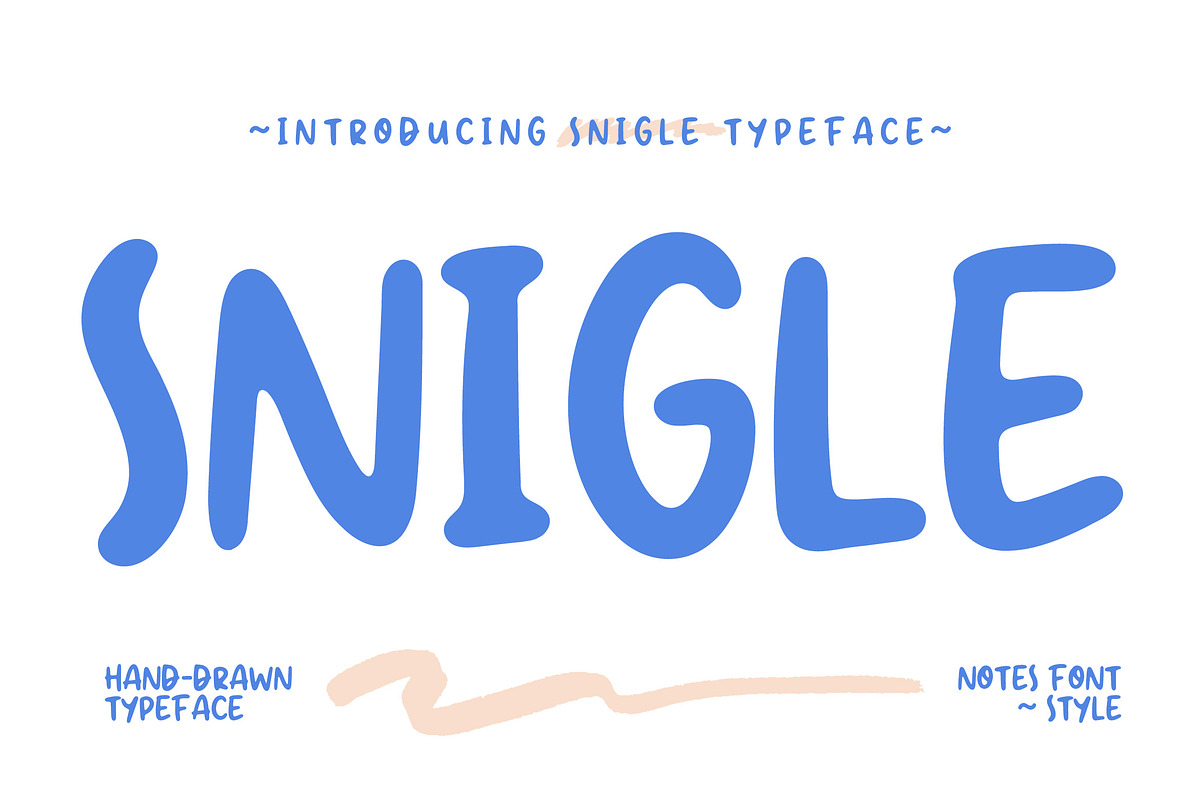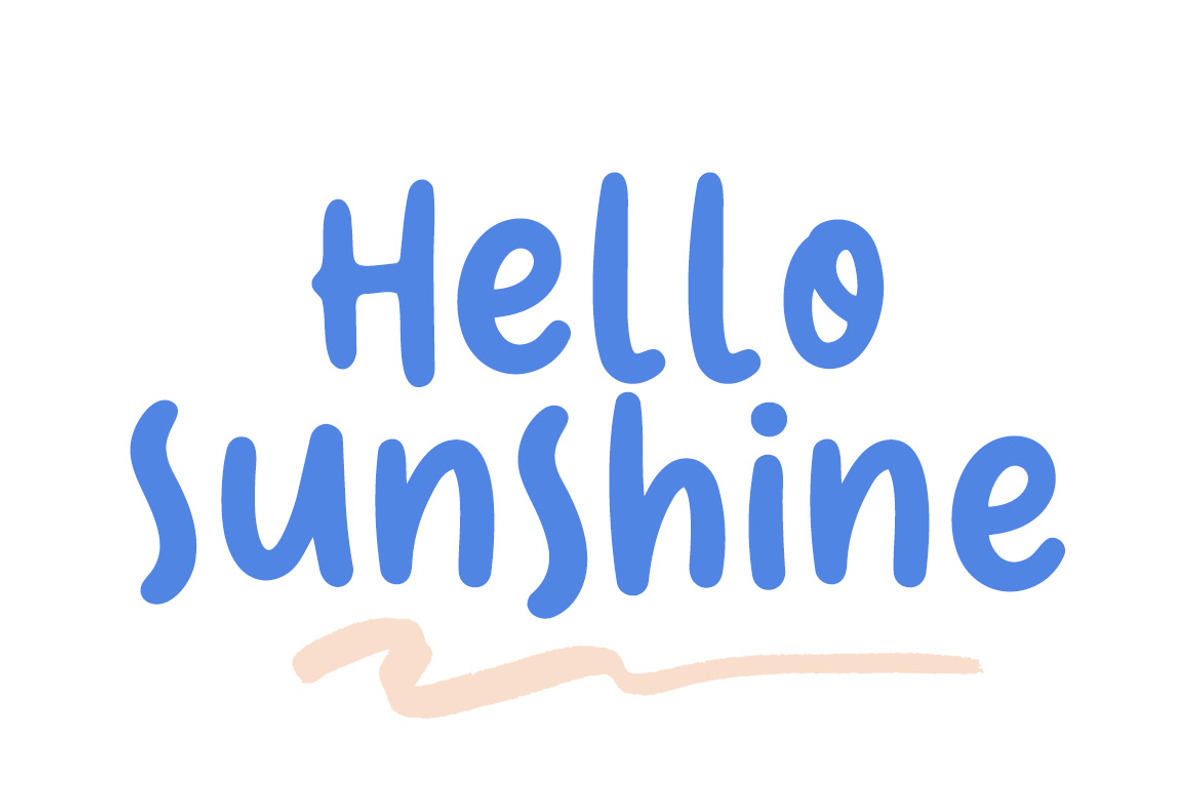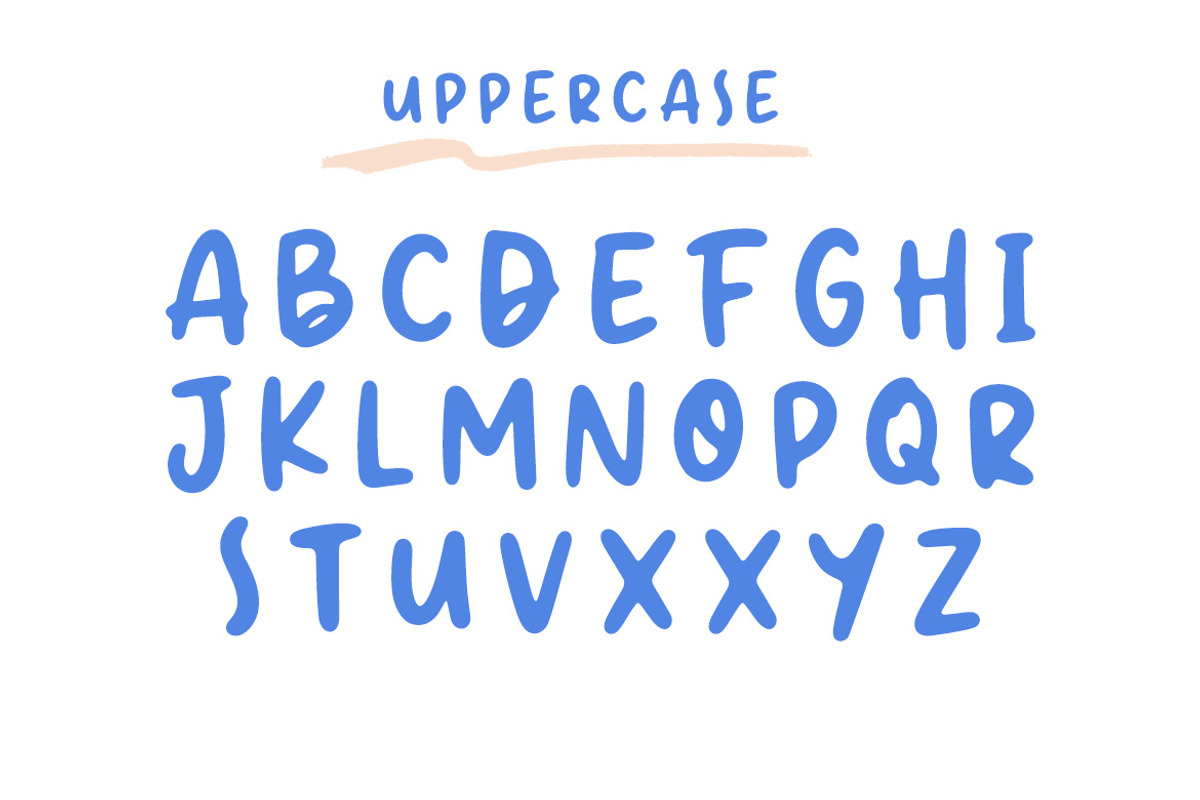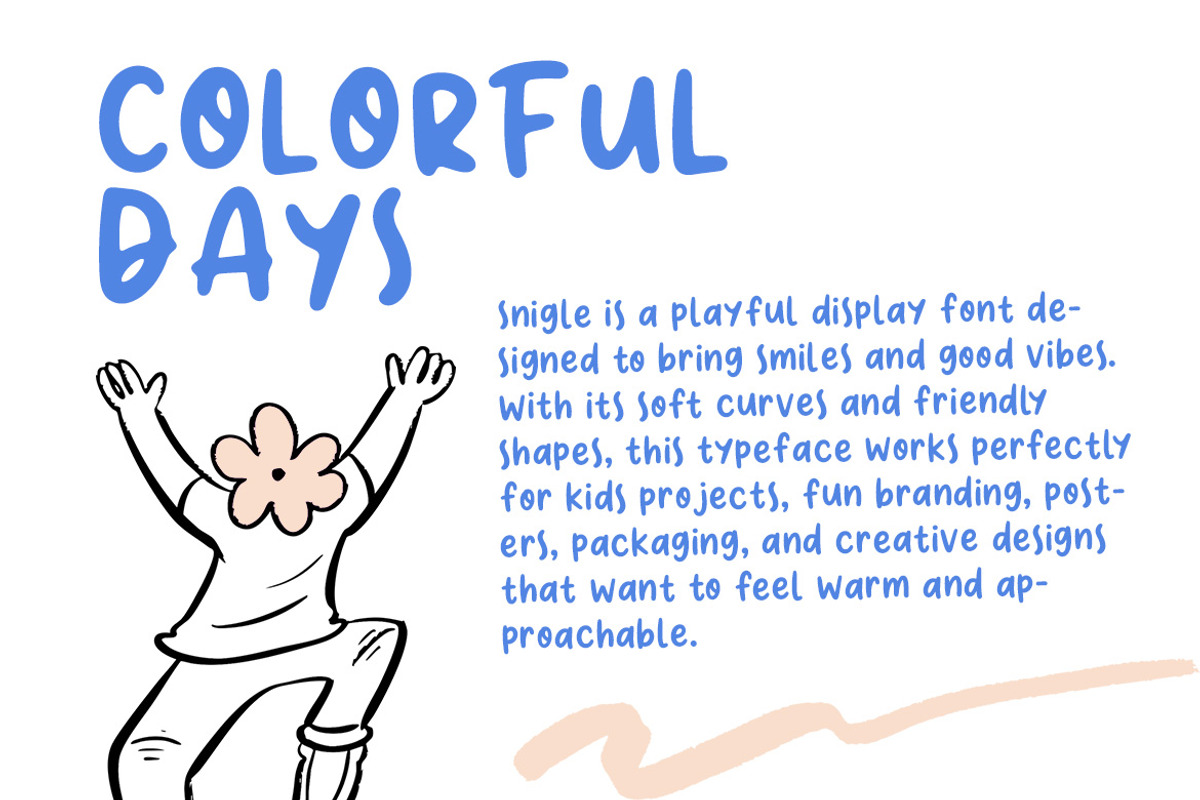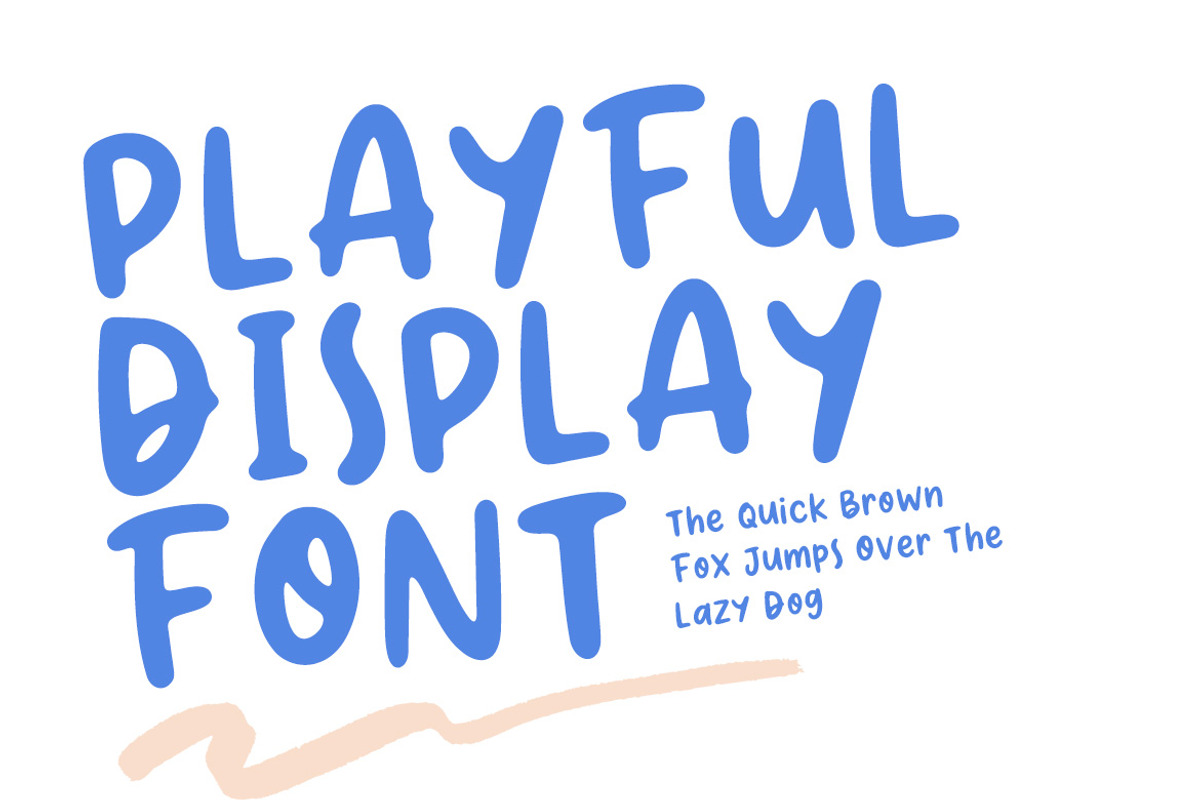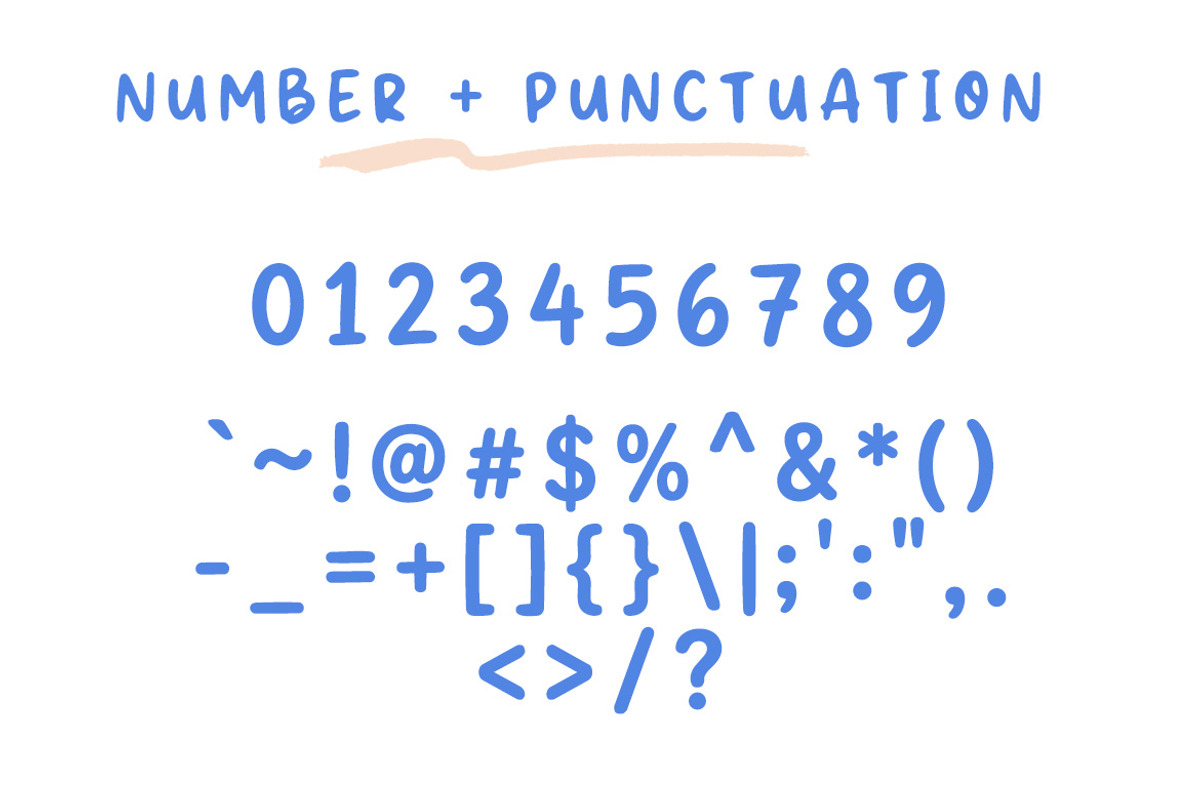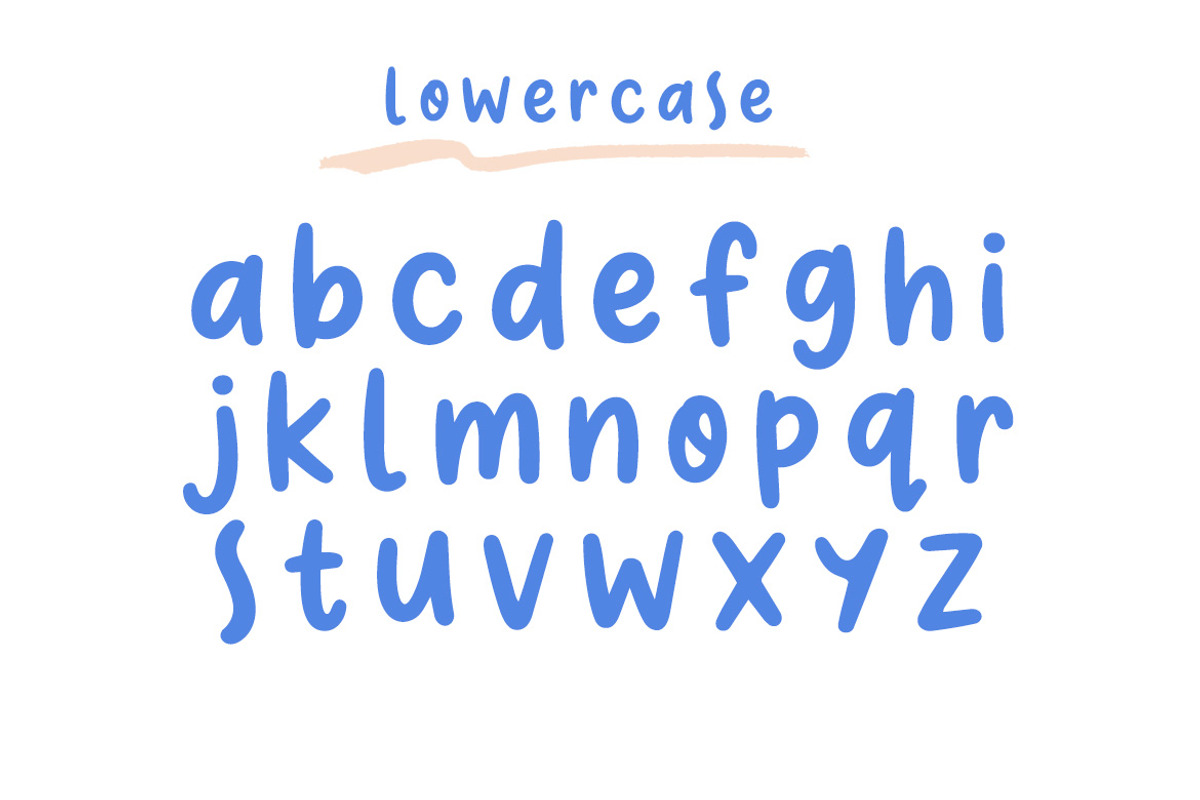
Snigle – Hand-Drawn Playful Display
Snigle is a charming hand-drawn display font that radiates warmth and creativity through its soft, rounded shapes and imperfect organic strokes, capturing the essence of casual notes and spontaneous ideas. With its friendly personality and approachable style, this typeface is perfect for children’s designs, educational materials, branding, packaging, social media content, and creative projects that aim to feel fun, relaxed, and human. Snigle brings a lighthearted and expressive touch that makes every design feel personal and inviting.
:FEATURES:
- Smooth Kerning